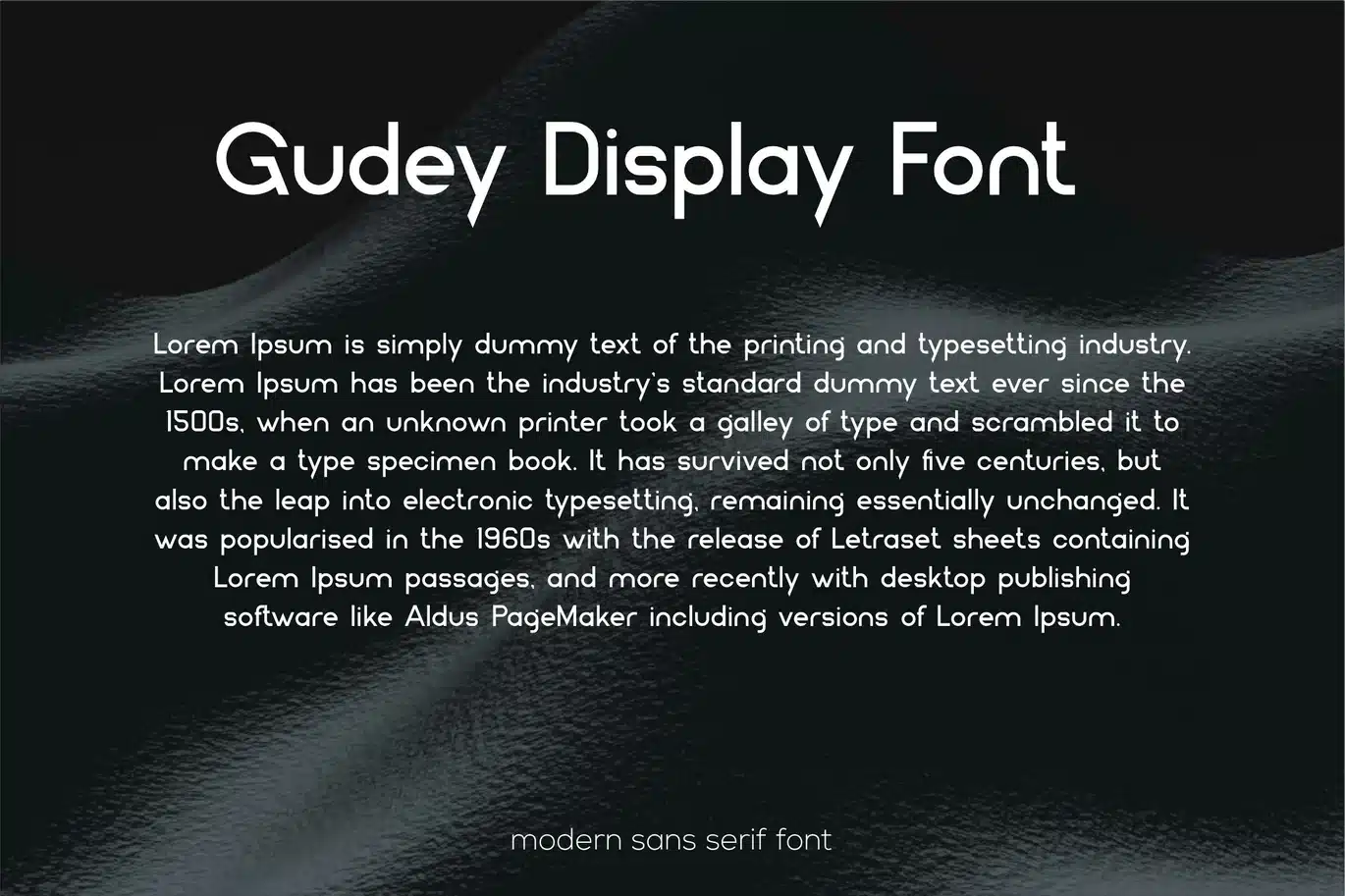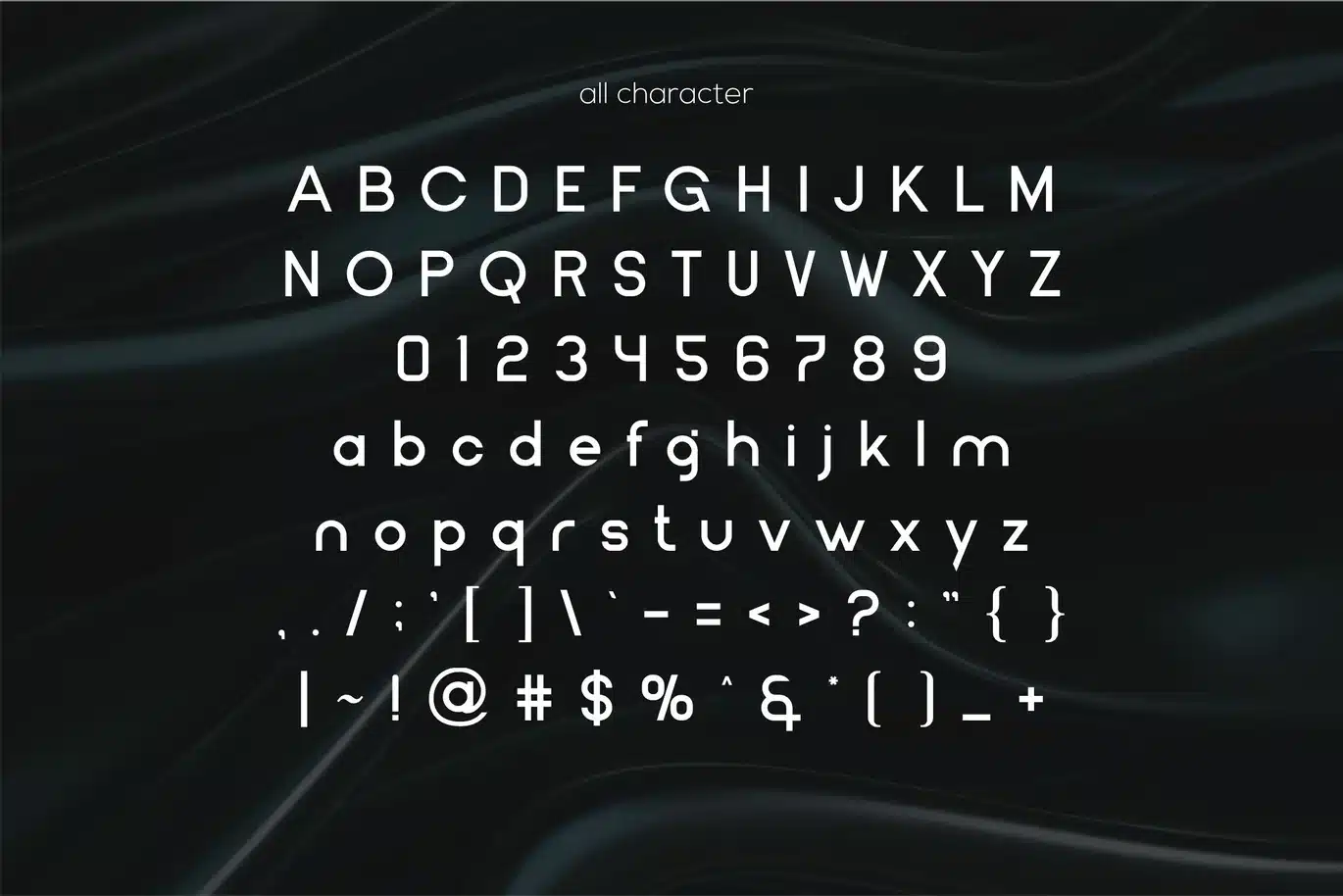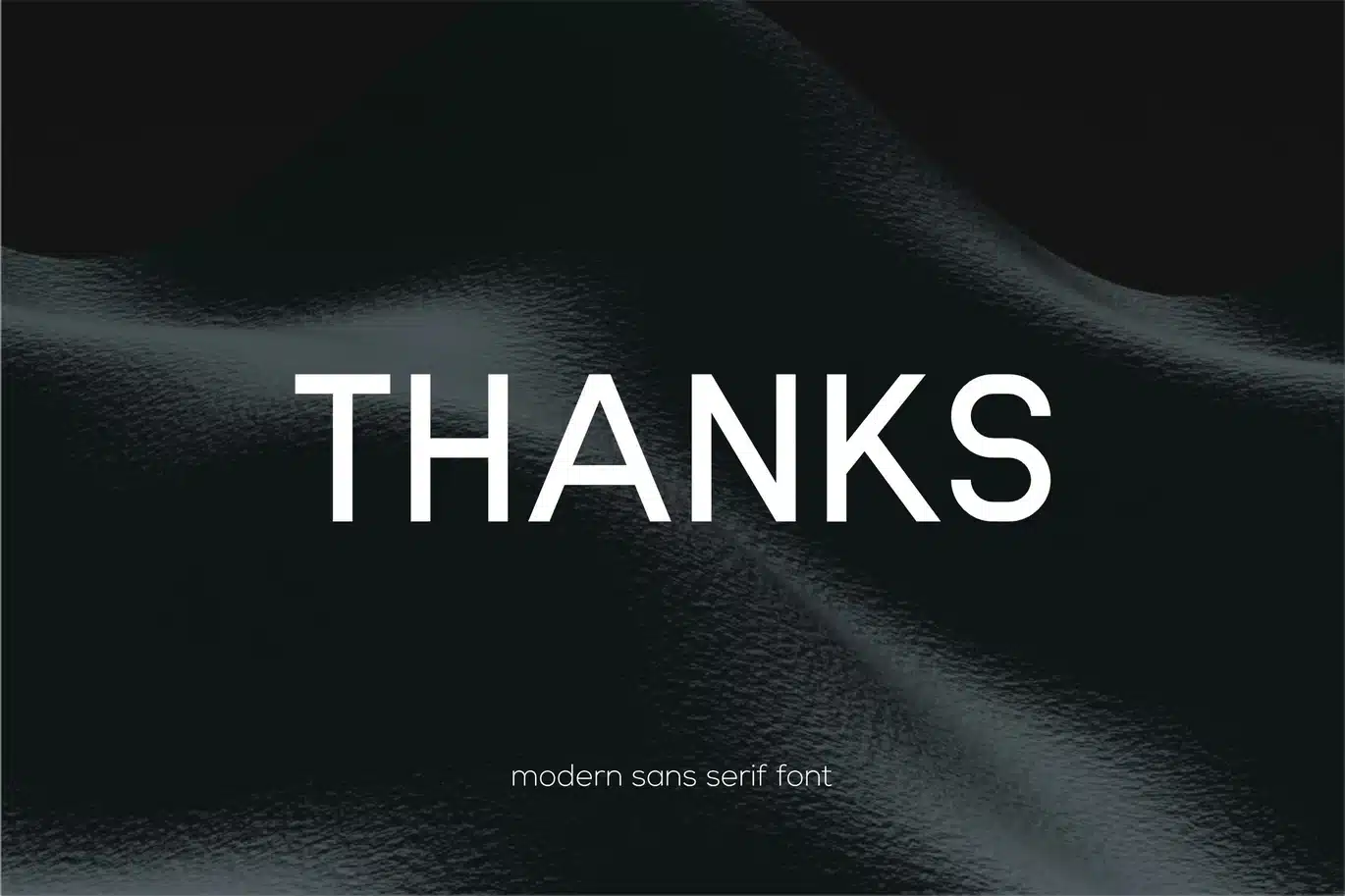
Gudey – Sans Serif Display Font
Introducing our new product Gudey - Sans Serif Display
Gudey - Sans Serif Display Font is and awesome and authentic display font.
- Number & Symbol
- UPPERCASE, lowercase
- Legature